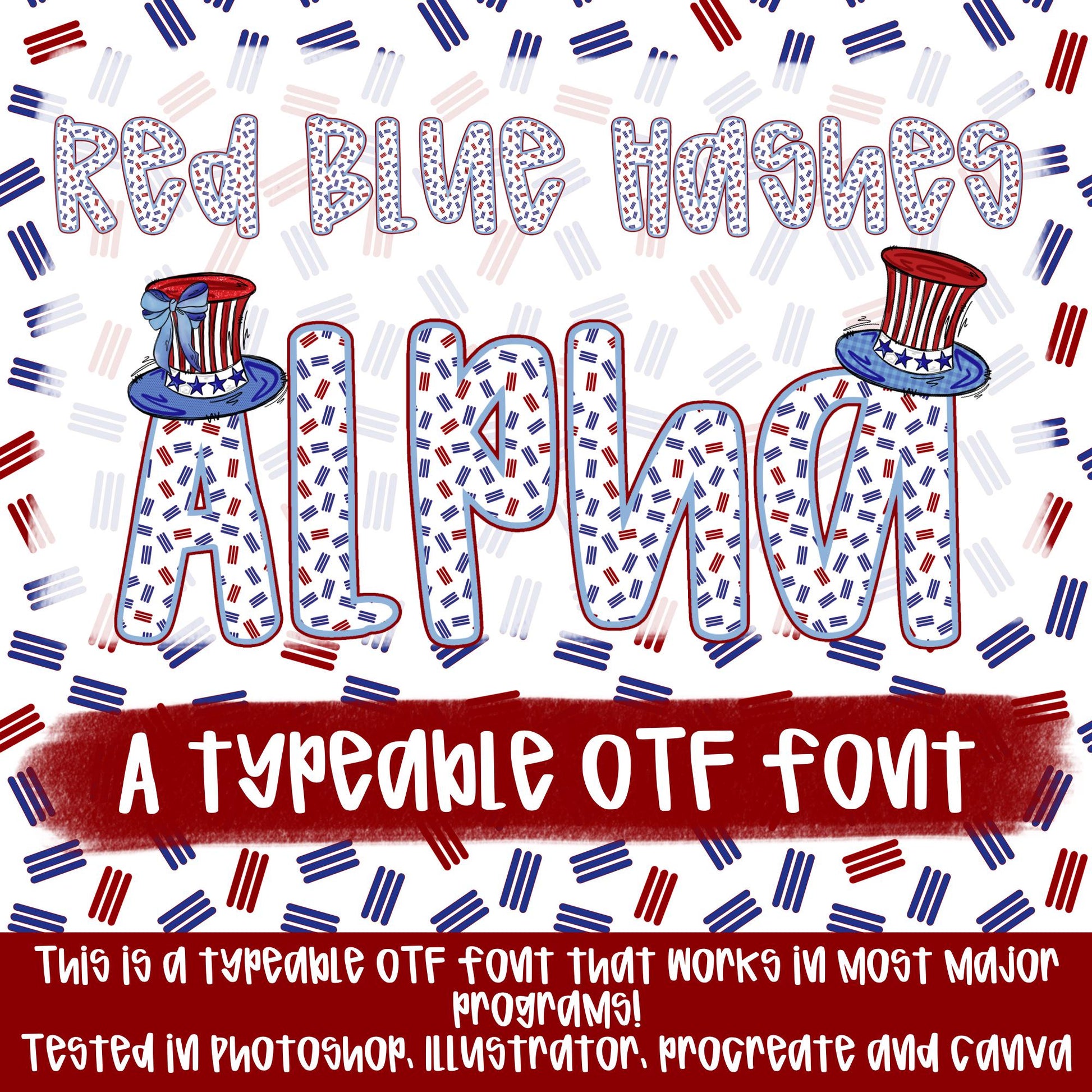
Red Blue Hashes Alpha | Typeable Font | Sublimation Design | Digital Download | Women’s, Kids Shirt PNG
-2 patriotic hats that can be used and placed wherever you want! You can use it by typing an 1 and 2 and the hats will appear!